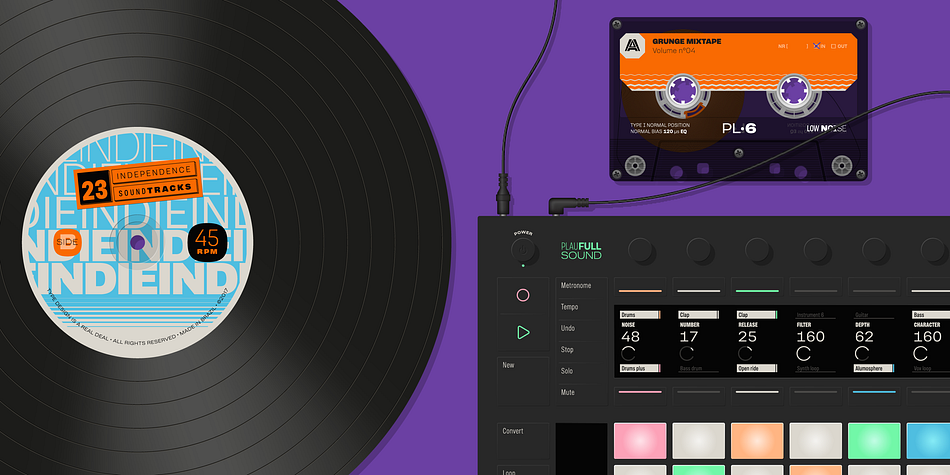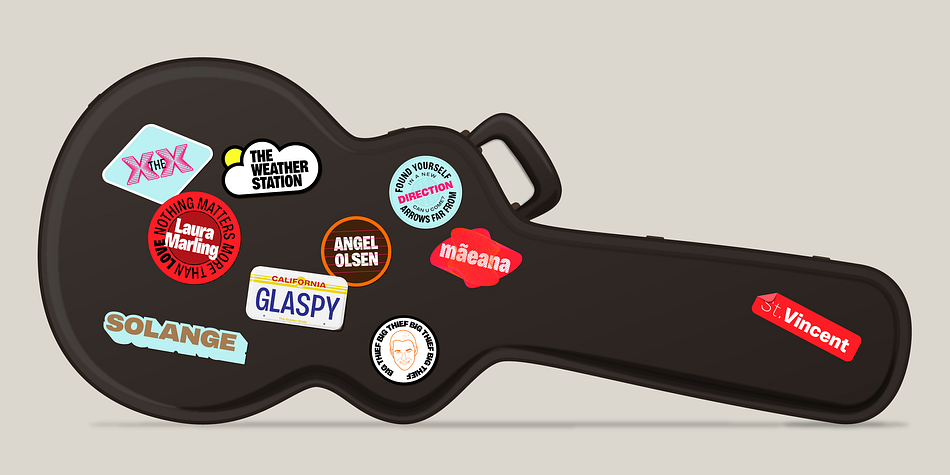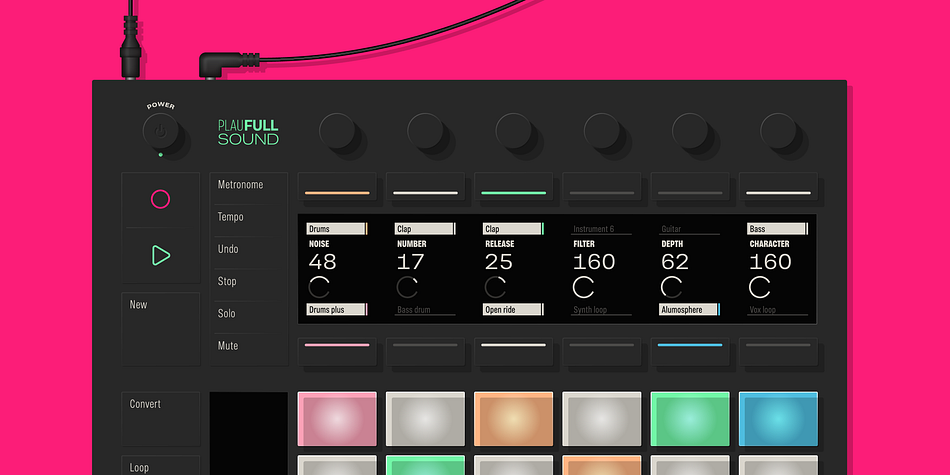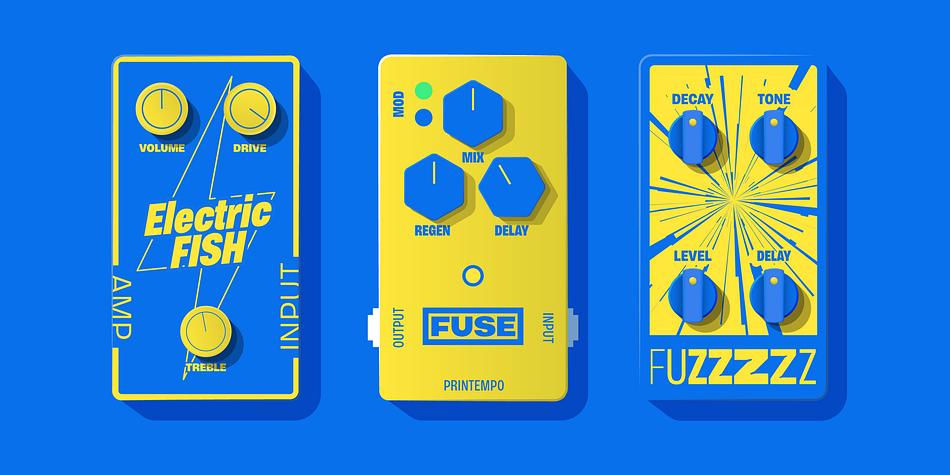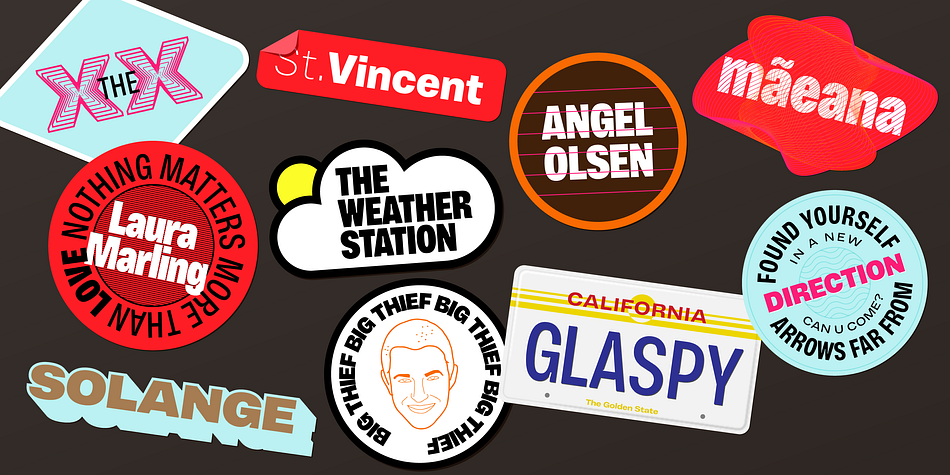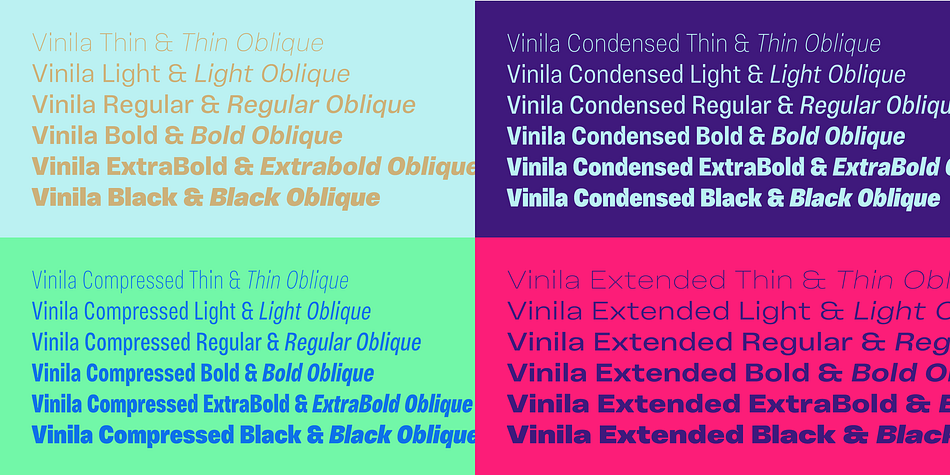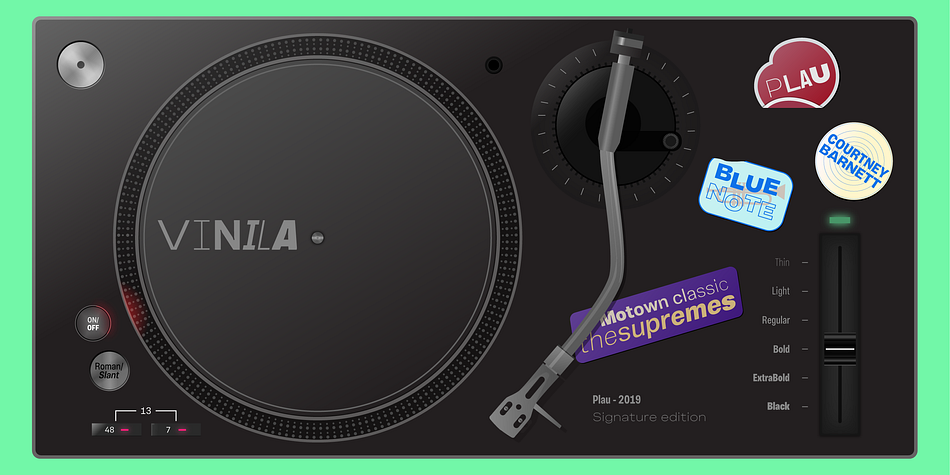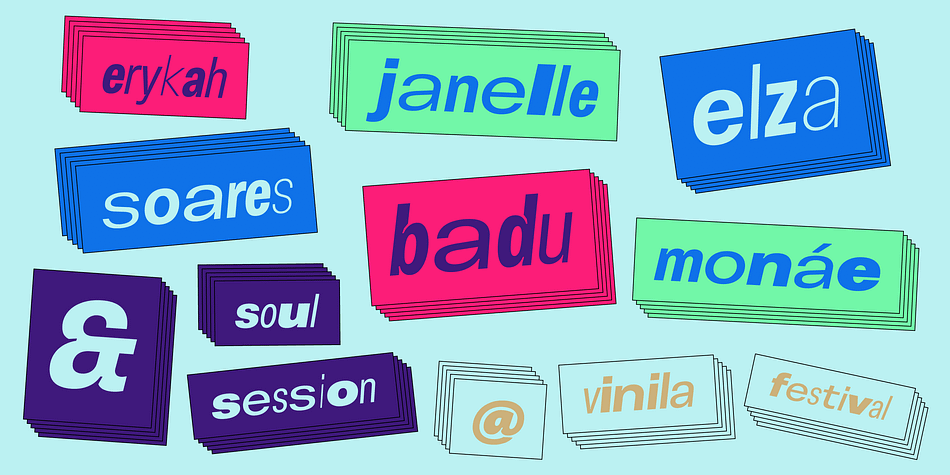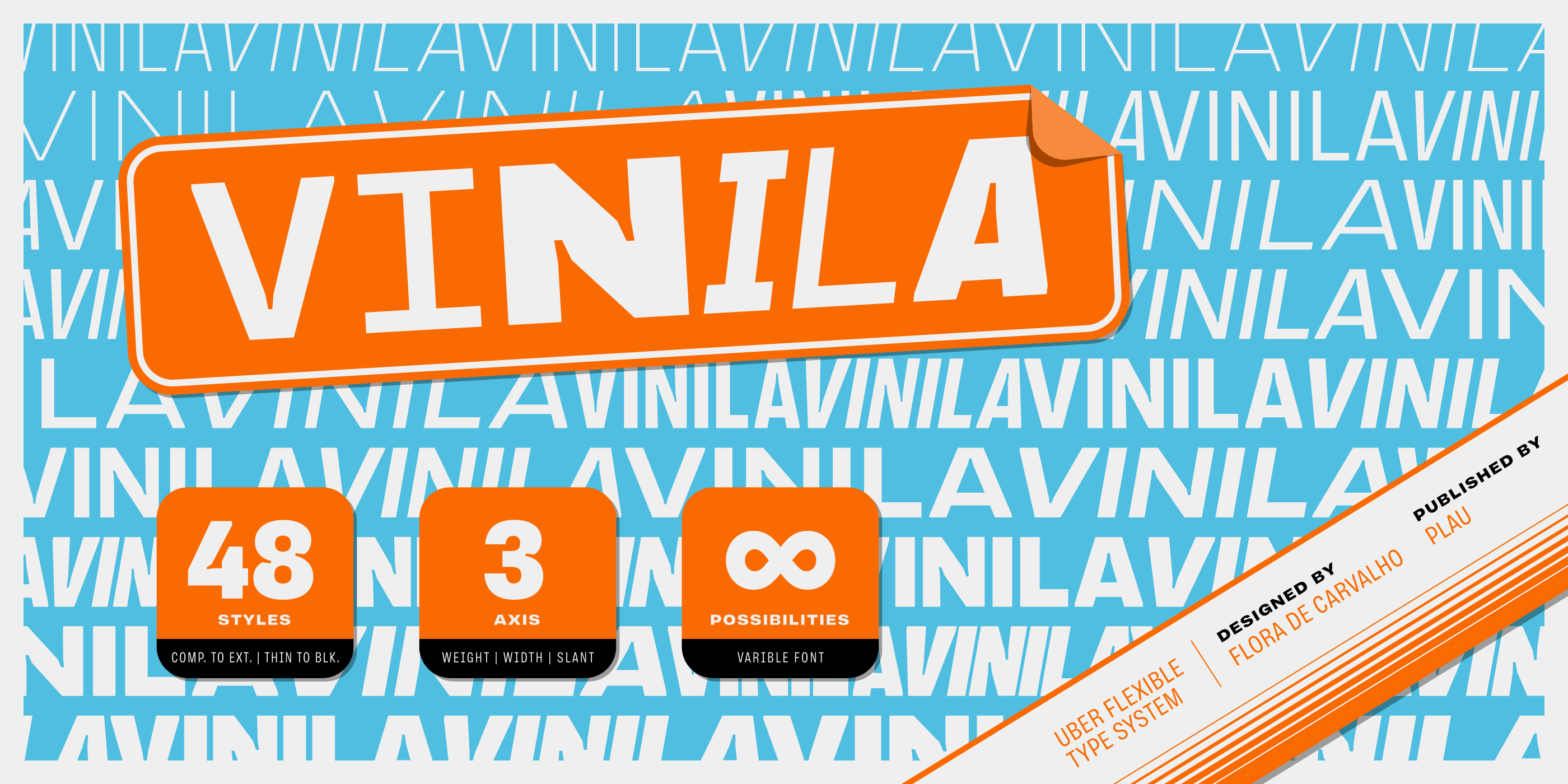
Designed by Flora de Carvalho and Rodrigo Saiani, Vinila is a sans serif font family. This typeface has forty-nine styles and was published by Plau.
Grotesques can answer a really wide variety of design problems and go from small sizes to large without missing a beat.
Vinila is Flora de Carvalho’s take on the genre. The family’s multi-purpose intention comes from having 4 widths - from compressed to extended, each with 6 weights and obliques.
Rhythm and music played an important part in the design of this font, which started off as the lettering for a Brazilian Music album.
Its distinctiveness comes from having powerful ink traps that go from elegant and supple in the lighter styles to commanding and impactful in the heavier styles. A distinct rhythm is achieved, making it a strong face for editorial design, branding projects and so much more.
Vinila is the ideal companion to expressive display faces, where it serves a supporting role with a marked presence. We use Vinila every day in our own brand identity. We’ve had some of the best designers use it and test it in many different environments, printed, digital, mobile and more (they really like it!).
Vinila pairs happily with our cheerful Manteiga, elegantly with our organic didone Tenez and mechanically with our monospaced Odisseia. What other matches can you think of?